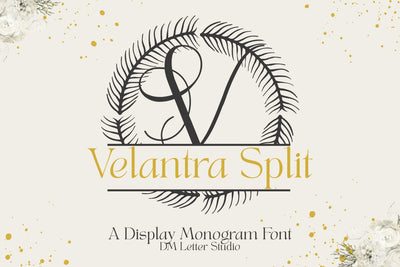
Velantra Split Monogram Font
Meet Velantra Split Monogram Font
Velantra Split Monogram Font turns any initial into a refined, name-ready emblem in seconds. The letterforms feel poised and modern, while a clean horizontal split creates natural space for names, dates, or short words. Because spacing stays even and counters remain open, designs look polished from tiny tags to wall art. Use it for wedding gifts, family name signs, door hangers, ornaments, tumblers, menus, and boutique packaging. In addition, this split monogram font pairs beautifully with a simple sans or a light script, so every layout stays readable and premium.
Where this split monogram font shines
Set one bold initial, then place the family name inside the split for instant personalization. Next, try couple names for keepsakes, venue names for directional signage, or short words like “Home,” “Welcome,” or “Love” for seasonal décor. Since metrics favor clarity, files scale smoothly for Cricut, Silhouette, Glowforge, and laser projects. As a result, you can batch customization for markets and storefronts with consistent, high-end results.
Design tips for Velantra Split Monogram
Keep the hero initial large and let white space breathe. Place the split at center or slightly low for a calm baseline. Choose a clean supporting font inside the split to protect legibility on small items. Because the style is airy and poised, metallic foils, textured stocks, and natural woods add instant value. However, keep names concise so the composition stays balanced and reads clearly at thumbnail size.
Uppercase alphabet optimized for split monograms
Matching lowercase, numbers, punctuation
Curves tuned for engraving, foil, laser cutting, and clean vinyl paths
Why makers choose this split monogram font
You want fast personalization that still feels bespoke. Velantra Split Monogram Font delivers consistent, elegant name designs in minutes while keeping your shop’s visual language cohesive across many product types.